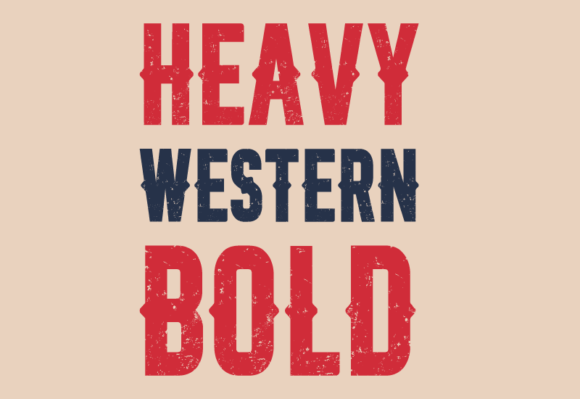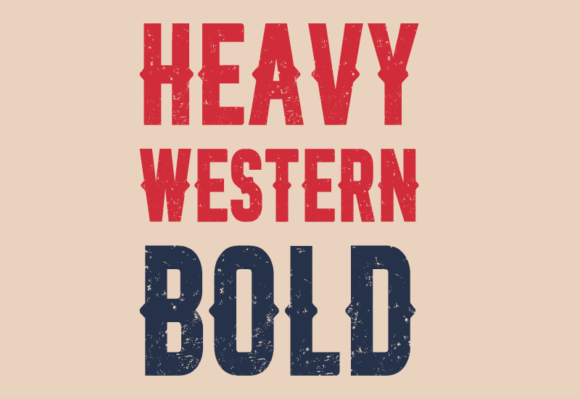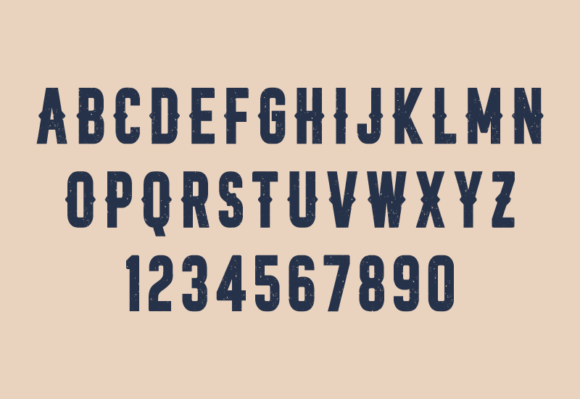
Heavy Western Bold Font
About the Heavy Western Bold Font
Presenting Heavy Western Bold Font, a unique and stylish typeface that will make your work stand out. Unleash the power of distinctiveness with our ‘Heavy Western Bold’ Display font. Renowned for its edgy yet unique Western style design, Heavy Western Bold is more than just a typeface. Each of its raw, rough lines is layered with a distressed texture, nurturing an aura of grit and dissent. With its unapologetic boldness and individualistic spirit, Heavy Western Bold delivers the perfect textural complement for projects that thrive in audacity.
From disruptive poster graphics and audacious album covers to distinctive streetwear branding, Heavy Western Bold is crafted to embody the essence of non-conformity. Allow Heavy Western Bold to enhance your design aesthetics and shout out your messaging with profound impact.
Heavy Western Bold Font Example